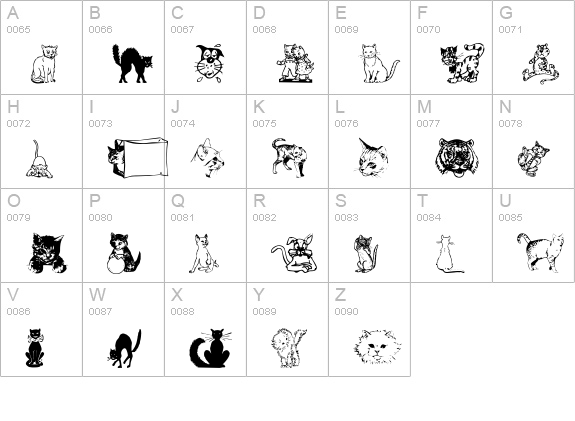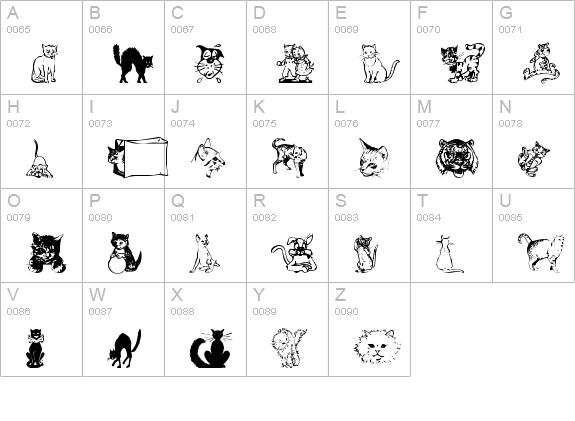
New Dingcats Font Details
Introducing the stunningly unique and playful New Dingcats font! With its whimsical and charming design, this font is perfect for adding a touch of fun to your projects. Featuring a wide range of adorable dingbat characters, New Dingcats is sure to delight and captivate your audience. The best part? New Dingcats is available for free download at FontsMarket.com! Embrace the creativity and versatility of this delightful font without any cost. Whether you're designing invitations, crafting social media graphics, or adding a touch of flair to your website, New Dingcats is the perfect choice to make your content stand out. Don't miss out on the opportunity to enhance your projects with this delightful and eye-catching font. Download New Dingcats today and let your creativity soar!